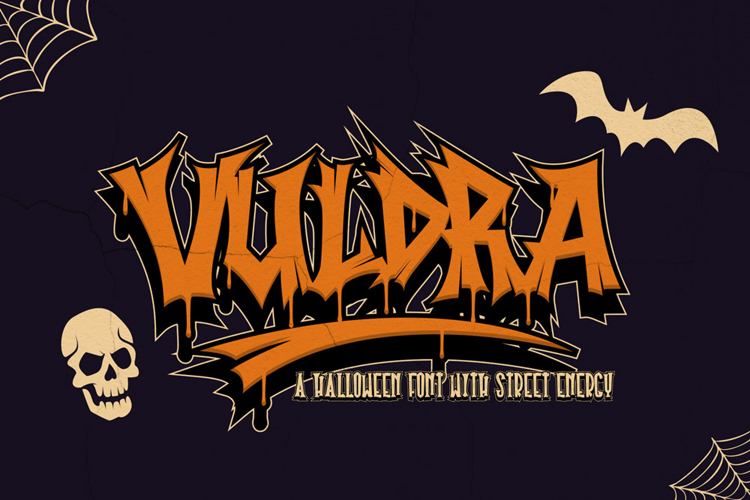
Enter the spooky season with a bold and chilling typeface – Vuldra – Graffiti Halloween Font. This font combines the raw strokes of graffiti with terrifying drip effects that perfectly capture the eerie atmosphere of Halloween. Each character looks hand-sprayed with horror in mind, making your design instantly stand out.
Vuldra is ideal for Halloween party flyers, haunted house posters, scary banners, social media promotions, and seasonal branding. Its dripping details make it look alive, as if the letters were melting under a haunted moonlight.
Key Features
- All Caps design for strong and bold text presence.
- Support Multilingual – perfect for global audiences.
- Two Styles: Regular and Drip for versatile spooky looks.
- Perfect for Halloween Projects – flyers, posters, banners, party invites.
- Graffiti-Inspired with authentic dripping horror effect.
Why Designers Love It Designers love Vuldra because it sets the perfect tone for October projects. The bold, all-caps letters ensure maximum visibility on posters and banners, while the Drip version adds an extra layer of creepiness for haunted themes. With multilingual support and multiple formats, it’s easy to use across different platforms.
This font lends every project a professional touch while maintaining the spooky, dripping personality that Halloween demands.